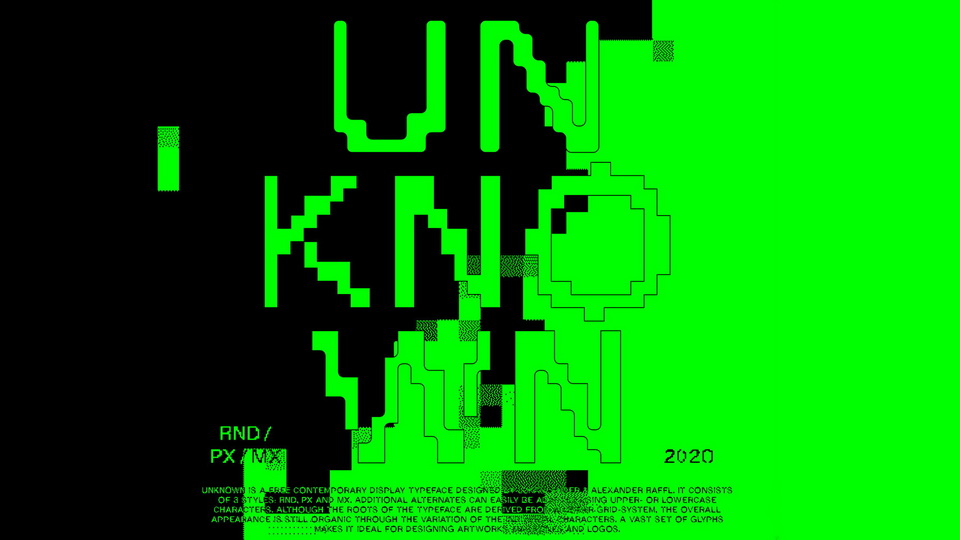
Download UNKNOWN typeface, a contemporary display font family in three styles based on a linear grid-system. The overall appearance of the UNKNOWN is still organic through the variation of the individual characters.